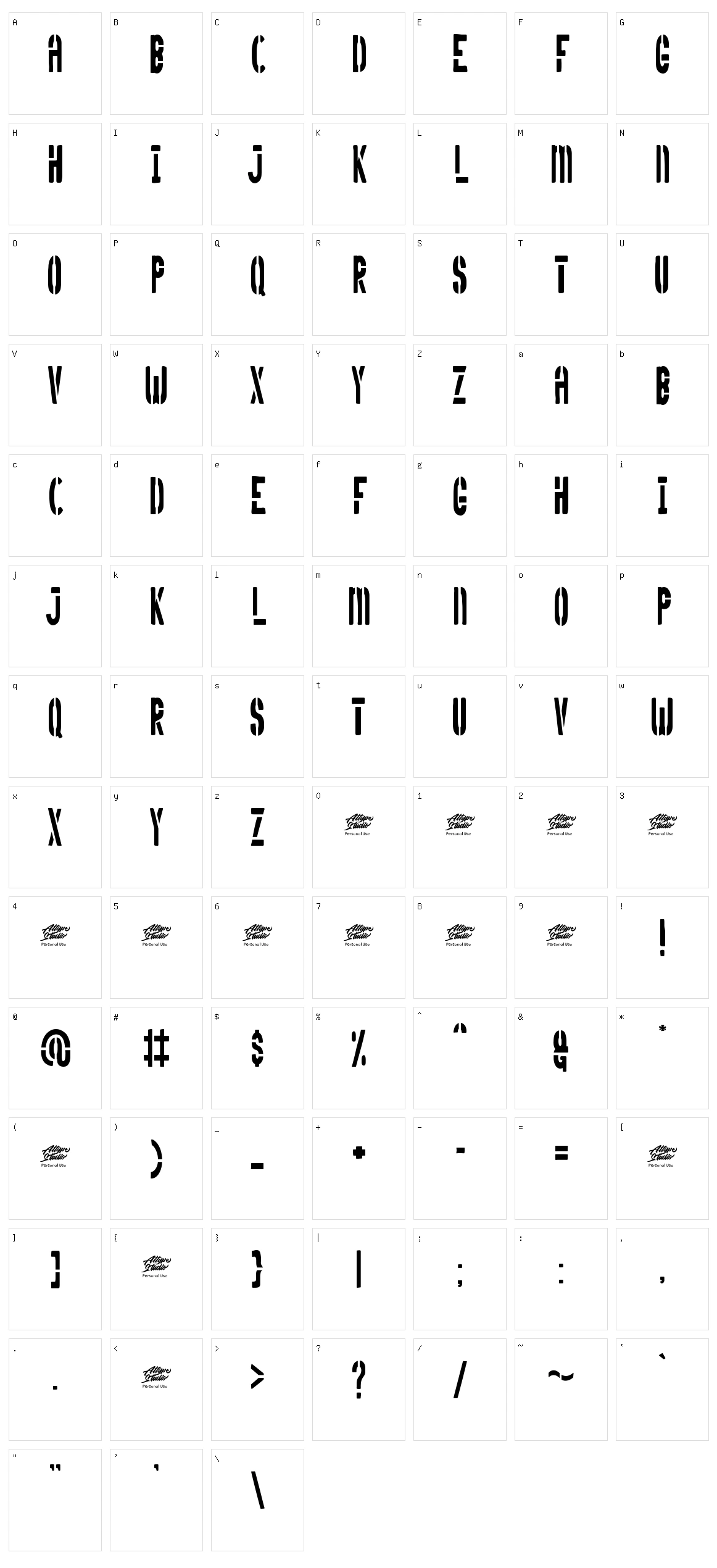
The free font Orange Baroon Display is carefully designed by Attype Studio, showcasing a thoughtful balance of creativity and usability and falls under the Stencil font style. When you download the ZIP file, it contains only 630.43 KB of font files, making it lightweight and quick to download. Please review the license details below to understand permitted usage and distribution rights. If license information is not available, we recommend using this font for personal projects only or contacting the author directly for commercial usage permissions.